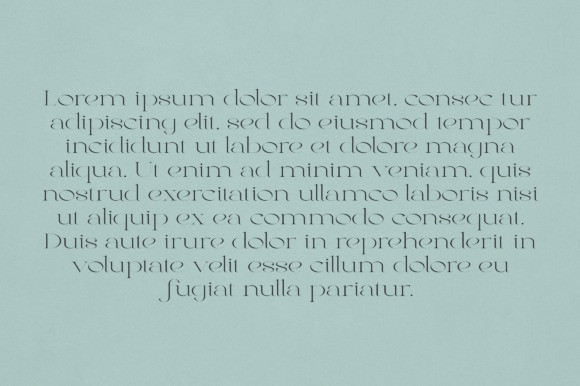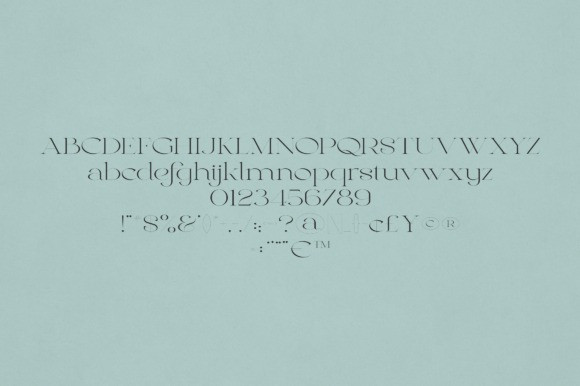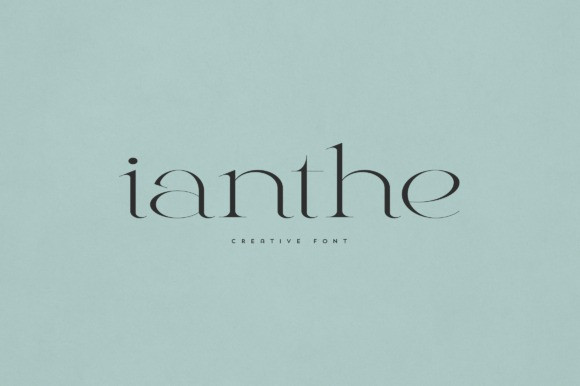
Ianthe Font
Ianthe Font is an elegant and versatile serif font that will make your typography truly unique! It will enchant every logo, branding, headline, or plain text!